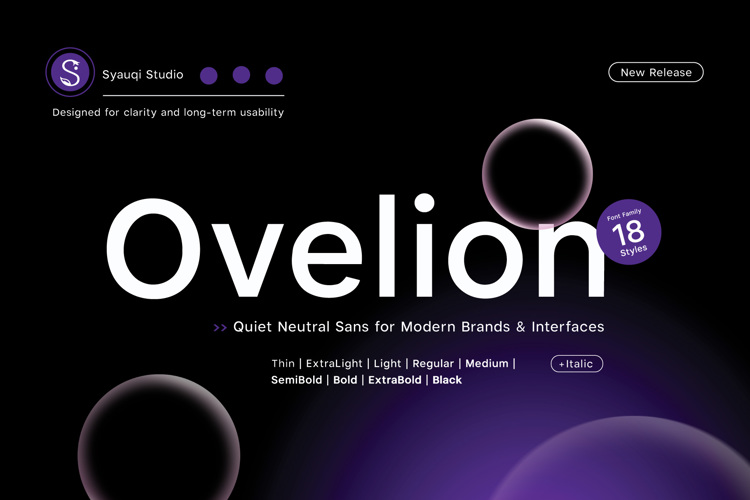
Ovelion Font
Ovelion — Quiet Neutral Sans for Modern Brands & Interfaces
Ovelion is a quiet, neutral sans serif designed for clear and consistent communication across branding, digital interfaces, editorial design, and corporate use. With usability at its core, Ovelion delivers strong readability and visual balance in both screen and print environments.